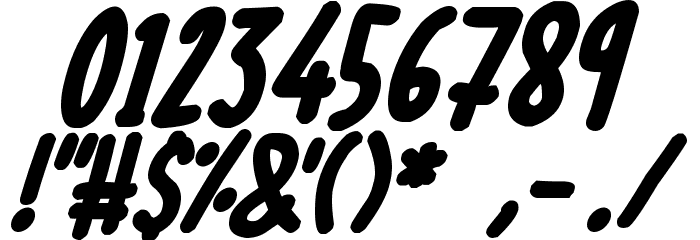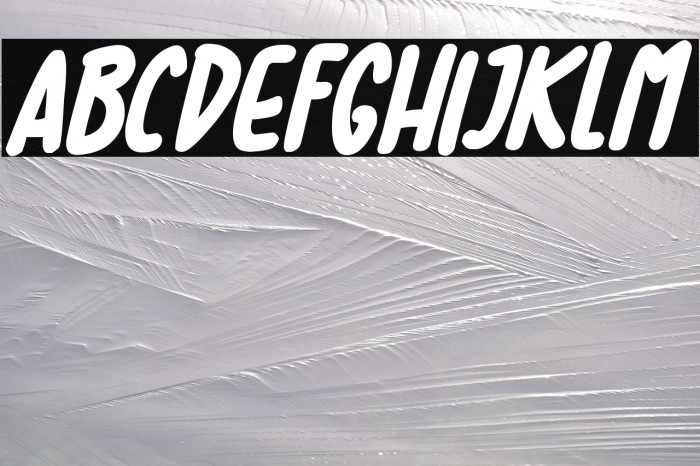
Lovebuzz Font
This font exhibits a bold, handwritten style with a playful and energetic appearance. The letters are rounded and slightly slanted, giving a sense of motion and fluidity. The uppercase and lowercase characters maintain a consistent style, with the lowercase letters being slightly smaller in size. The numbers and special characters are designed to match the overall aesthetic, ensuring a cohesive look across all glyphs. The strokes are thick and uniform, contributing to a strong visual impact. This font is ideal for projects that require a lively and informal touch.
- Proposed Projects: Ideal for posters, greeting cards, branding, and social media graphics.
- Category: Handwritten
- Overall Style: Playful